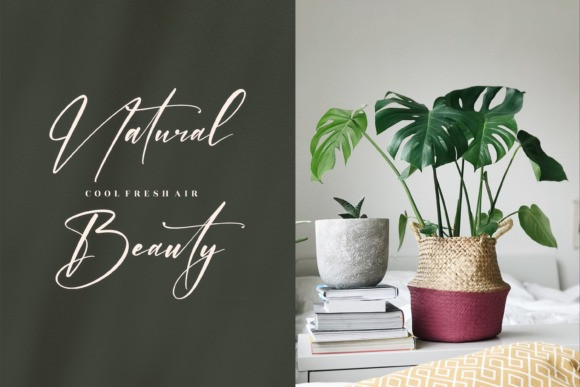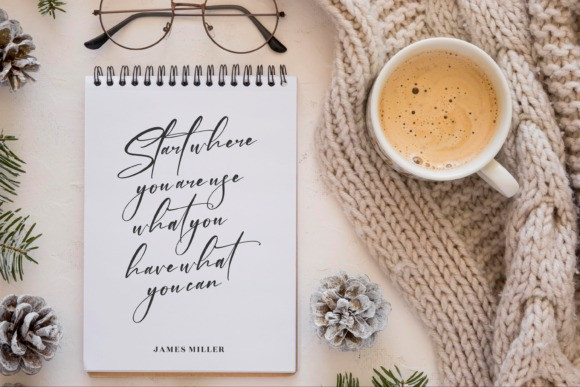
Blackburn Handwritten Font
Blackburn Handwritten Font is a handwritten script font that is very elegant and charming. Get inspired by its classy appeal!